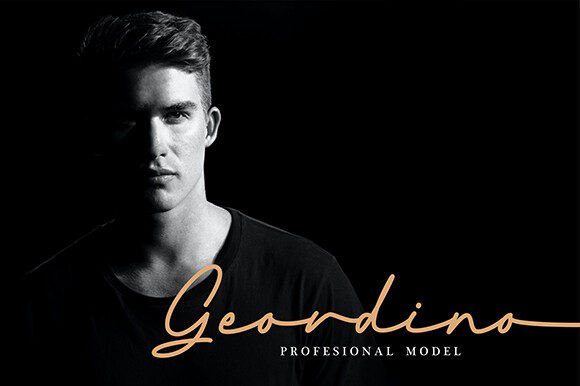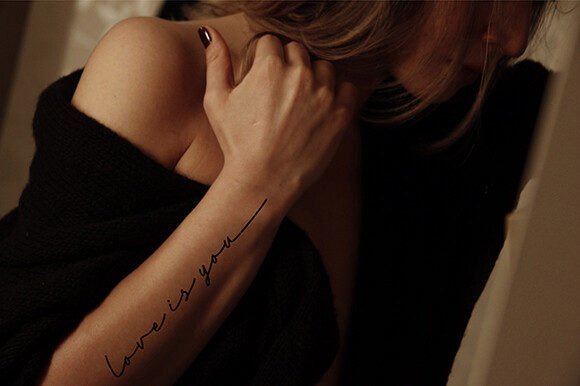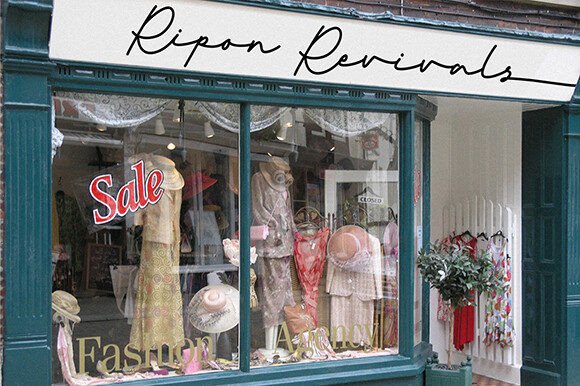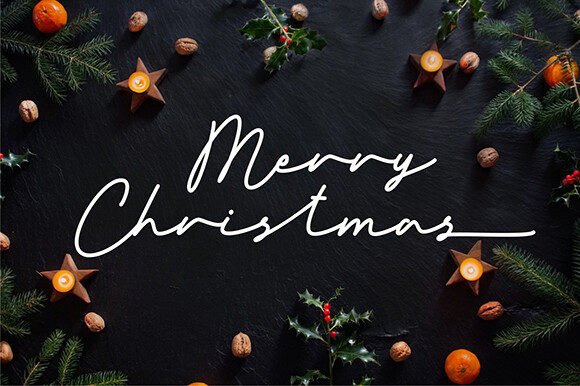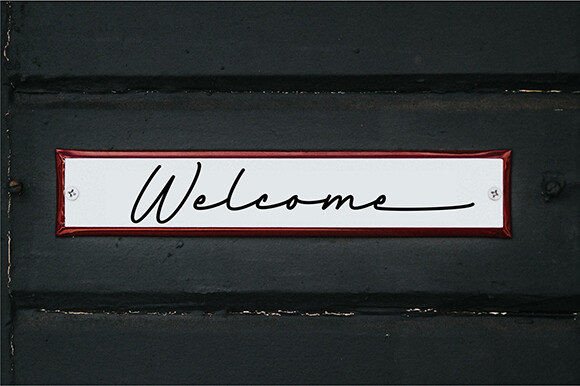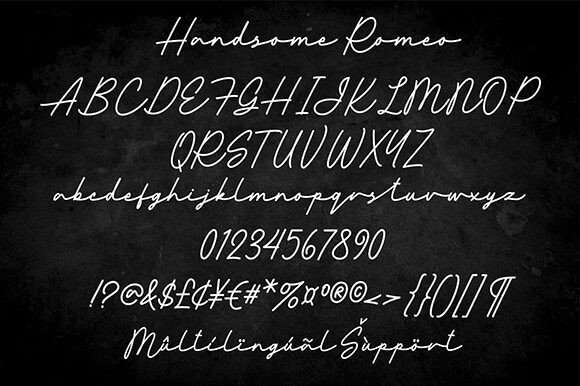
The Perfect Signature: Unveiling the Handsome Romeo Font
As a designer, have you ever struggled to find the perfect font to make your signature truly stand out? Maybe you’ve spent hours scouring through font collections, only to settle for something that just doesn’t feel like you. Well, we’ve got some good news for you – the search is over with the introduction of the Handsome Romeo Font.
- Unique Characteristics: Elegant, cursive script with a touch of classic romance, ideal for wedding invitations, love letters, and other romantic designs
Handsome Romeo Font Review
At first glance, the Handsome Romeo Font is a stunner. The elegant, cursive design is reminiscent of classic romance novels and adds a touch of sophistication to any text it’s used with. ✨ The font’s flowing lines and subtle flair make it perfect for creating a whimsical atmosphere or adding a sense of drama to your content.
One of the standout features of this font is its versatility. It can be used in a variety of contexts, from wedding invitations to book titles, and even as a display font for headlines. ✨ The font’s wide range of weights and styles also makes it easy to mix and match different versions to create a unique look.
- ⚠️ Limited legibility at small font sizes: While the font looks beautiful at larger sizes, it can become difficult to read at smaller sizes.
- ⚠️ May not be suitable for body text: The font’s flowing lines and cursive design make it more suitable for display use, such as headlines and titles, rather than body text.
Overall, I think the Handsome Romeo Font is a beautiful and versatile choice for designers looking to add a touch of elegance to their work. While it may have some limitations, its unique design and wide range of uses make it a great addition to any font library.
Handsome Romeo Font is ideal for:
- Photography and fine art prints
- Headings and titles for websites and blogs
Remember to use the font in moderation to avoid overwhelming the design.